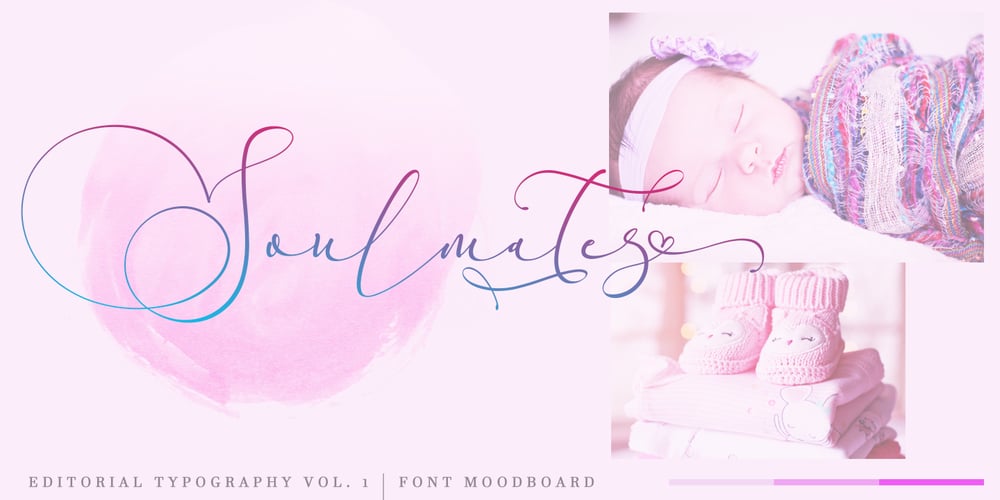
Everything Calligraphy
Everything Calligraphy font
Everything Calligraphy Font Family was designed by Alde Saputro and published by Aldedesign. Everything Calligraphy contains 1 styles and family package options. Everything Calligraphy is a stylish calligraphy font that features a varying baseline, smooth line, modern and with a deep love. For those of you who are need a touch of love and modernity for your designs or branding, it can be used for various purposes such as headings, wedding, invitation, signature, logos, branding, t-shirt, letterhead, signage, labels, news, posters, badges etc.